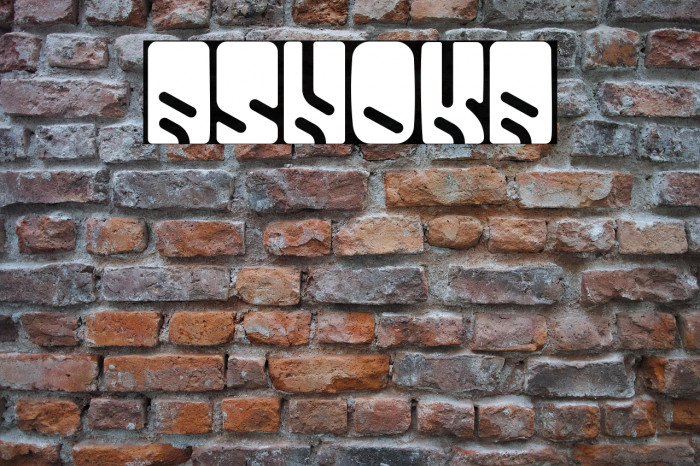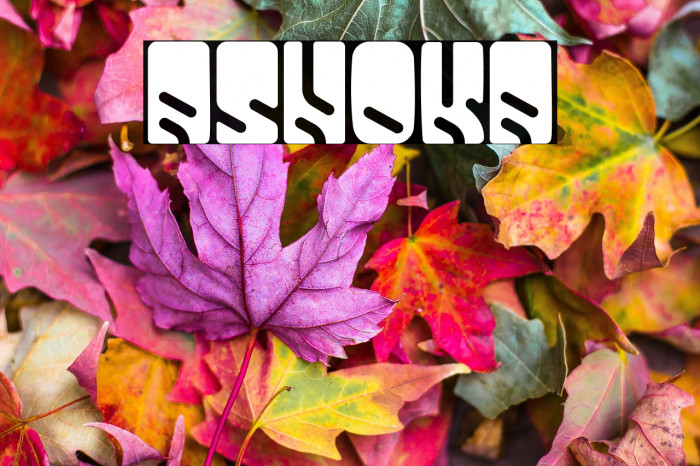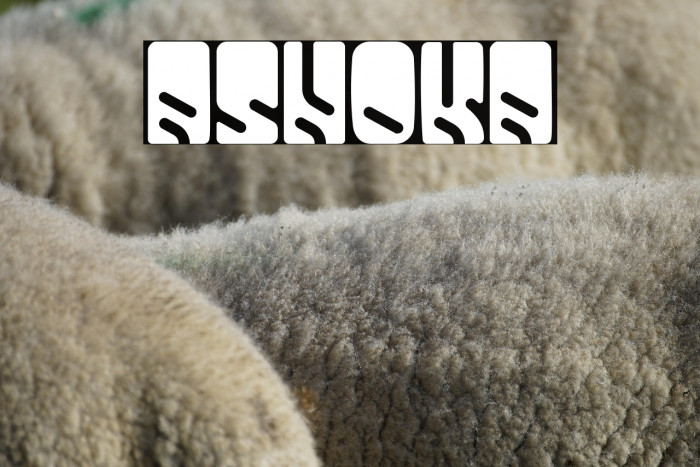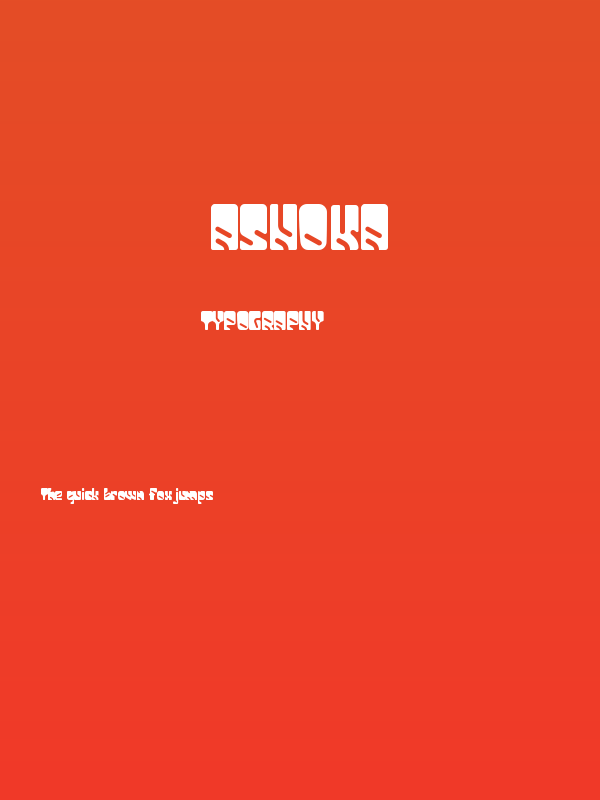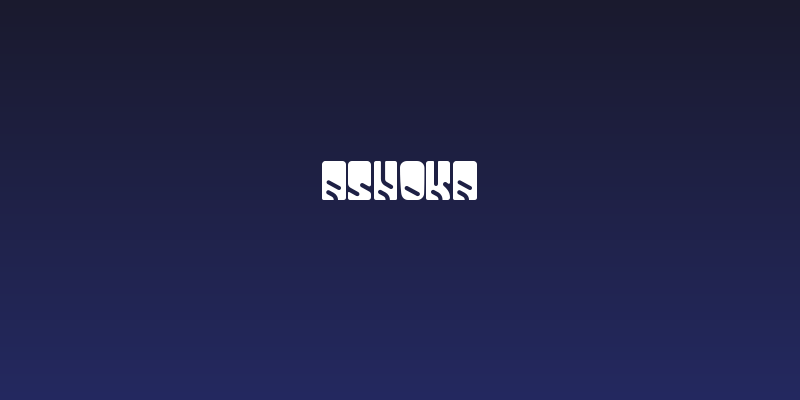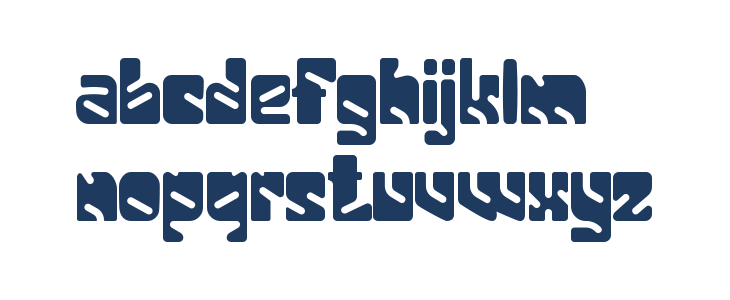
ASHOKA Font
ASHOKA Description
This font features a bold, geometric design with a unique, blocky appearance. The characters are heavily stylized with thick strokes and a distinct cut-out pattern that gives them a modern, artistic flair. The uppercase and lowercase letters maintain a consistent style, with rounded edges and a uniform thickness that contributes to a cohesive look. Numbers and special characters follow the same design principles, ensuring visual harmony across all elements. The overall aesthetic is striking and memorable, making it ideal for creative and impactful designs.
| Proposed Projects | Ideal for posters, album covers, branding, and any project requiring a bold, artistic statement. |